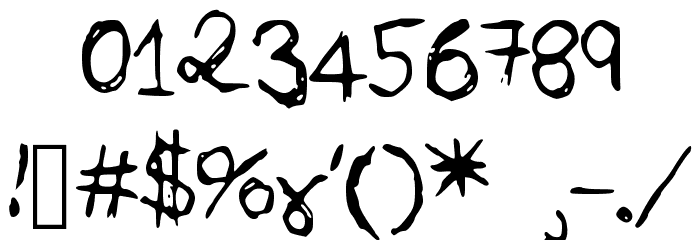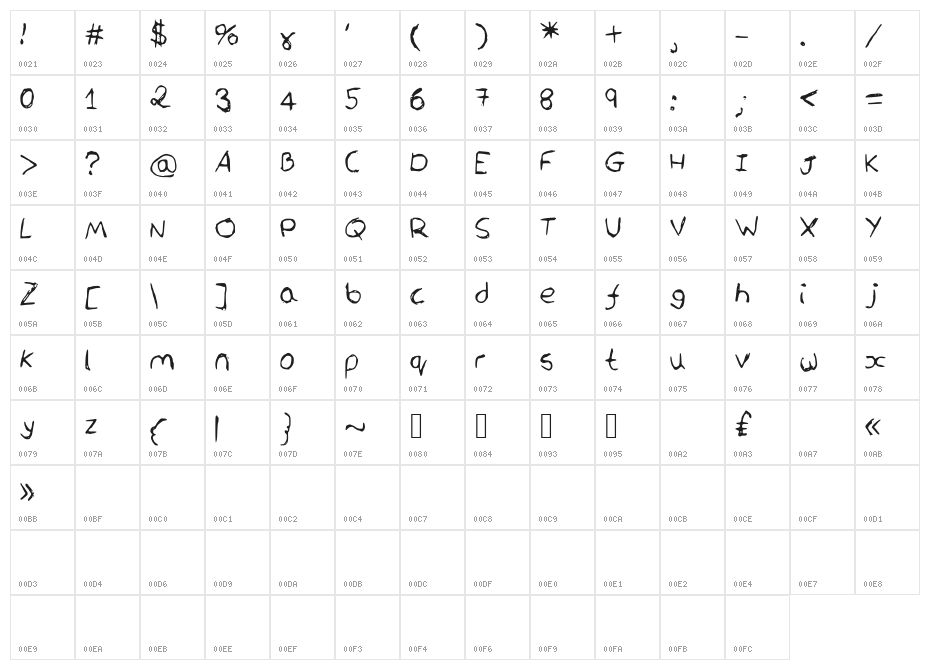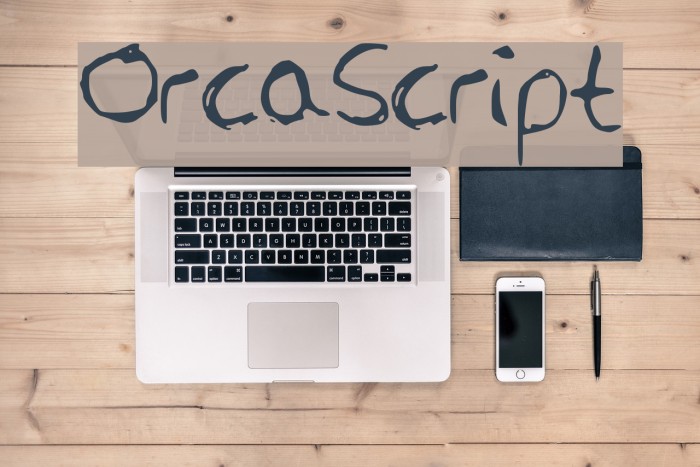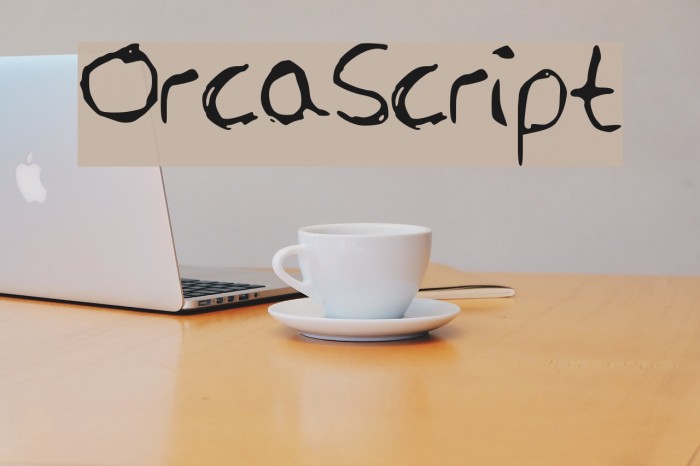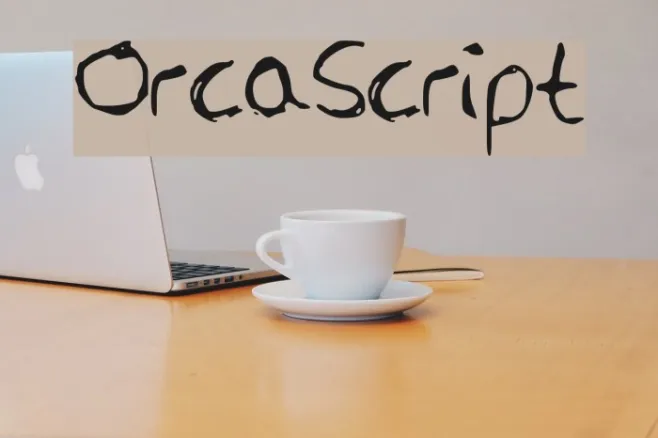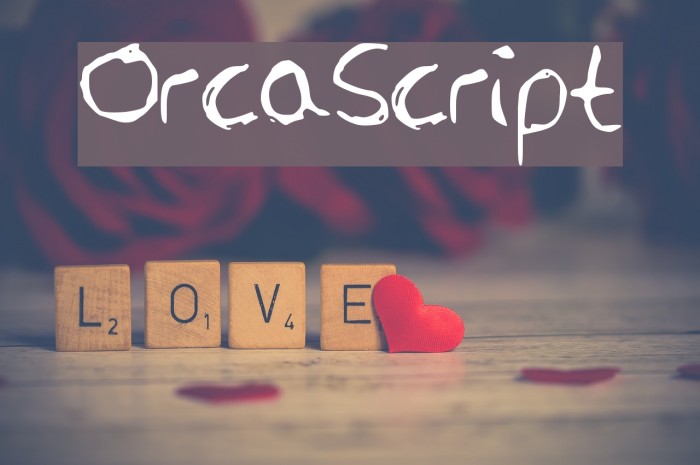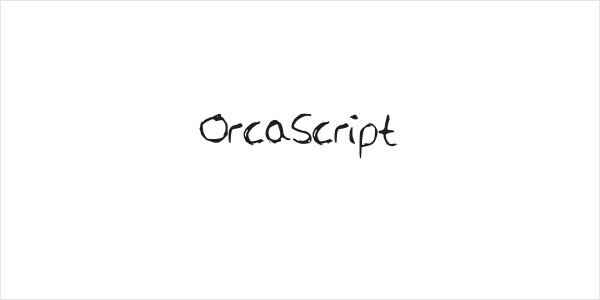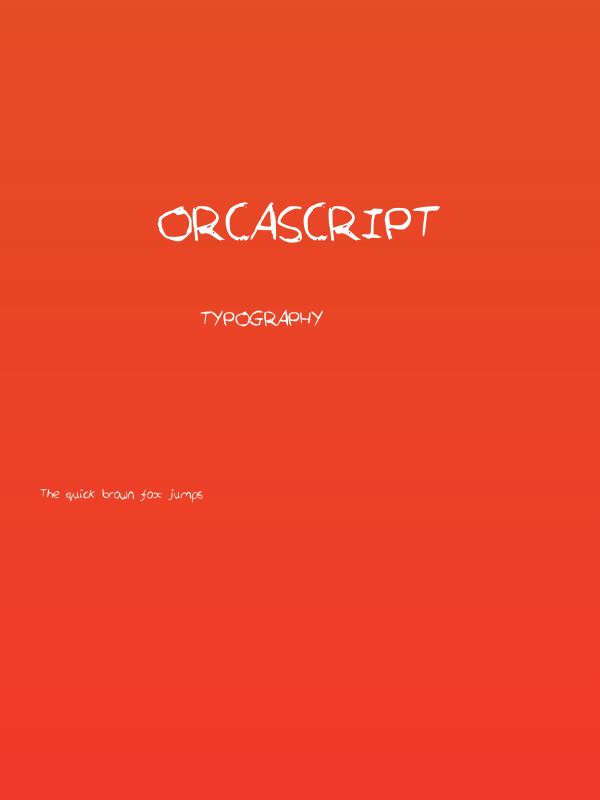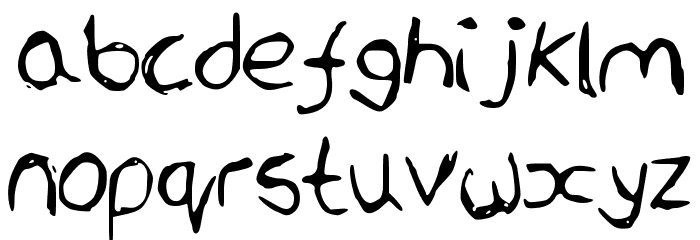
OrcaScript Font
OrcaScript Description
This font exhibits a playful and dynamic handwritten style, characterized by its irregular and organic strokes. The letters have a casual, almost whimsical appearance, with varying thickness that adds a sense of movement and energy. The uppercase and lowercase letters maintain a consistent style, with the lowercase letters slightly more compact. The numerals and special characters follow the same playful aesthetic, making the font suitable for informal and creative projects. Its unique style captures attention and conveys a sense of individuality and creativity.